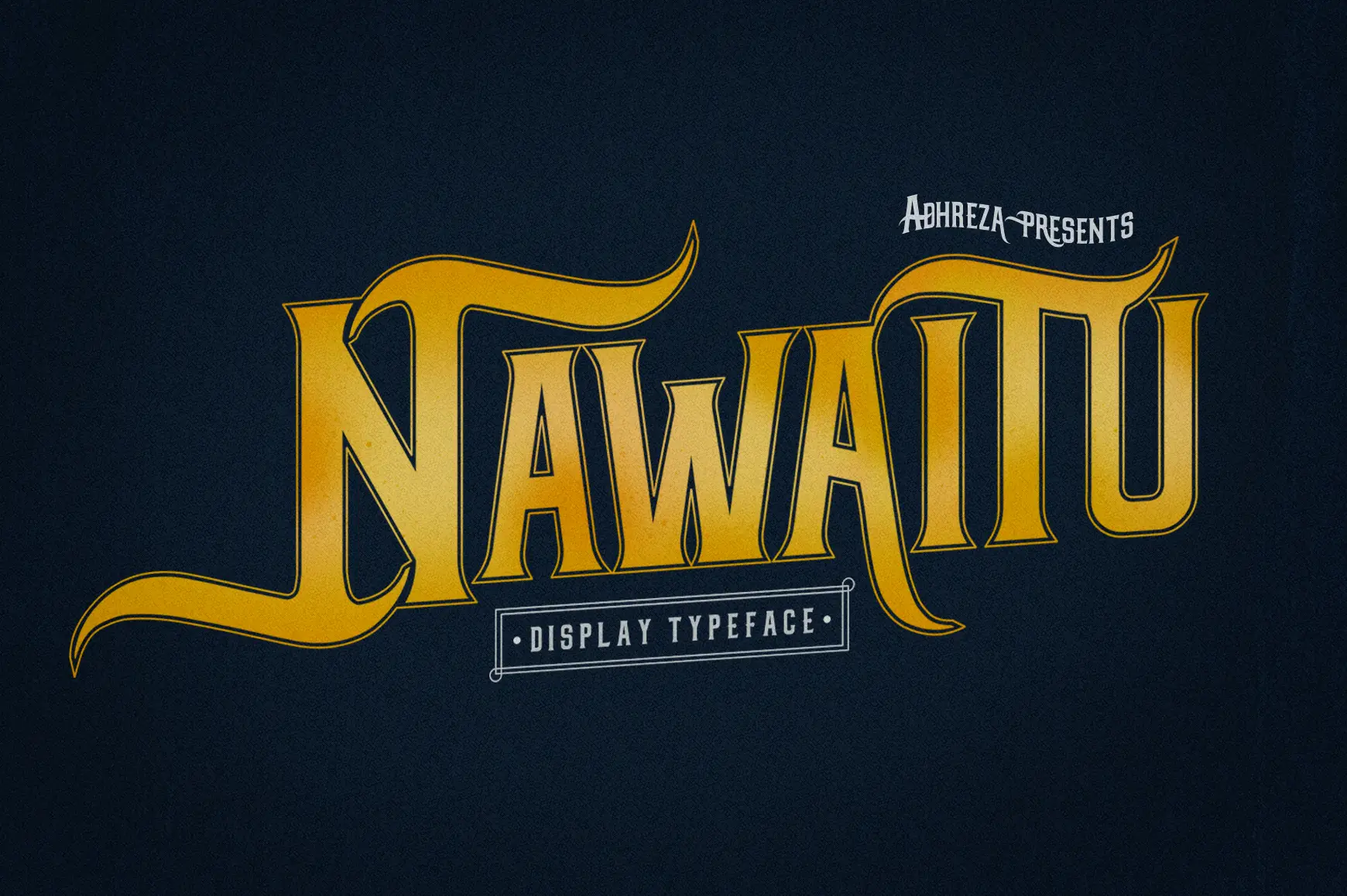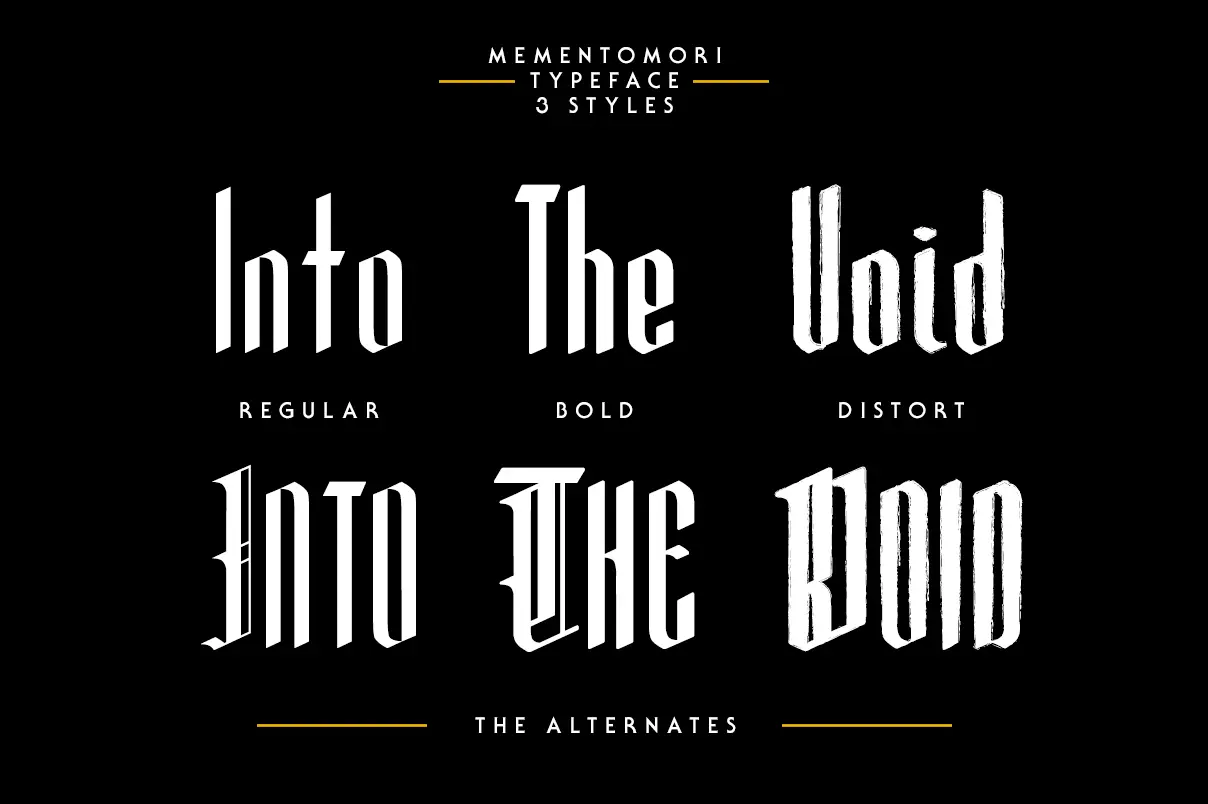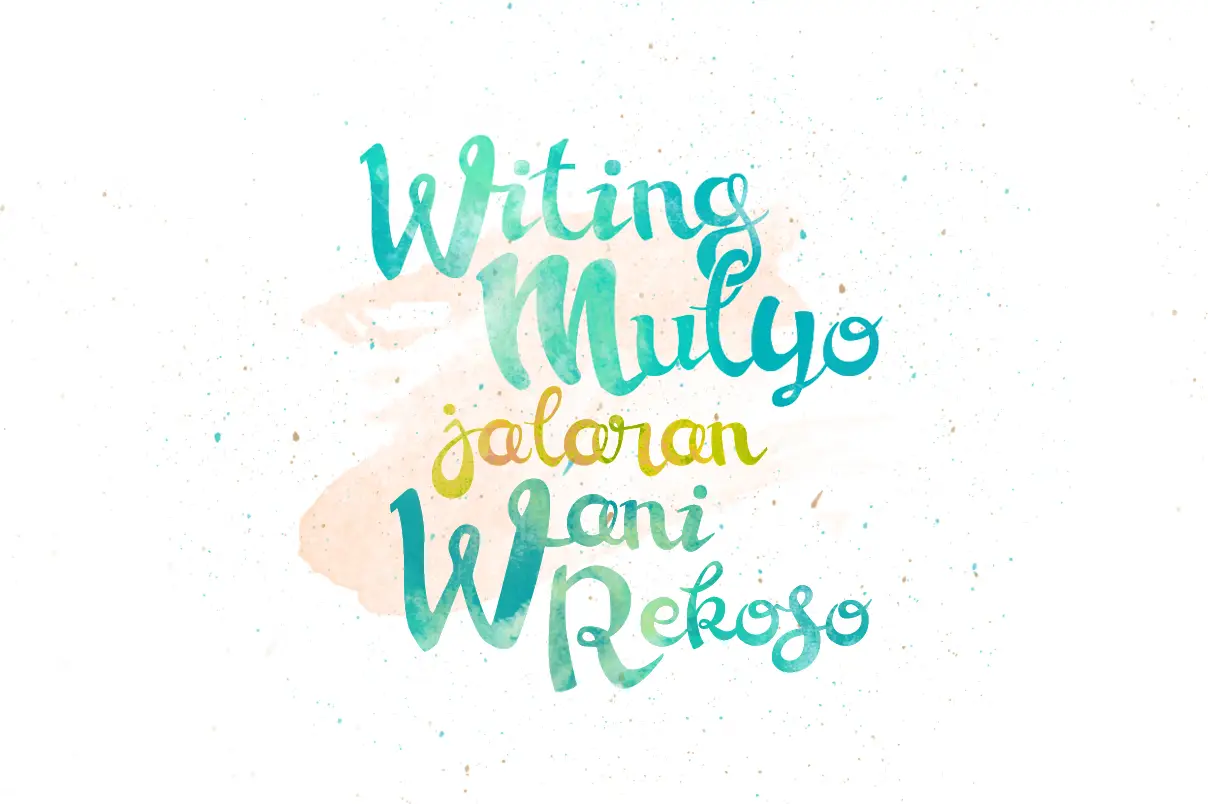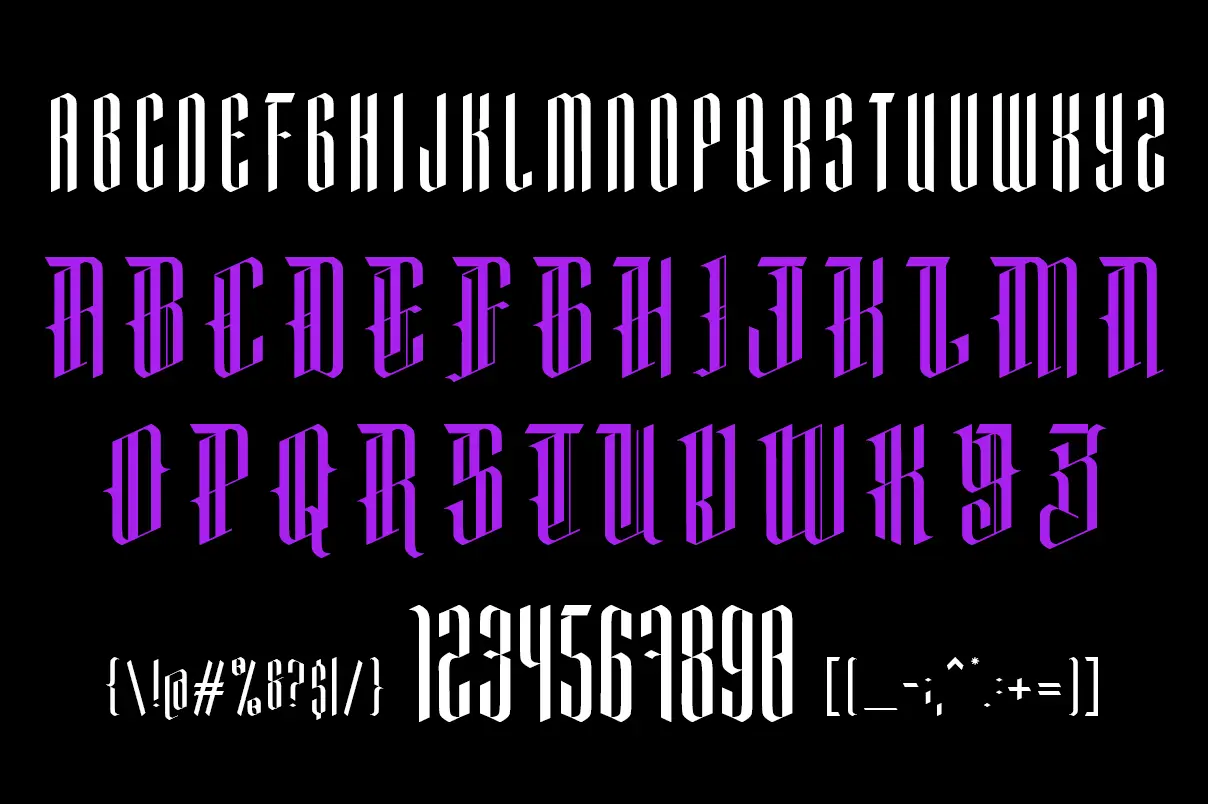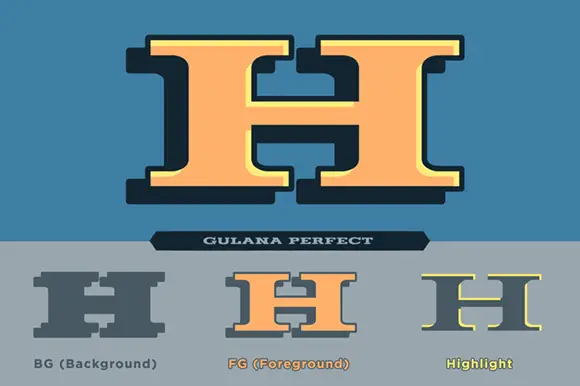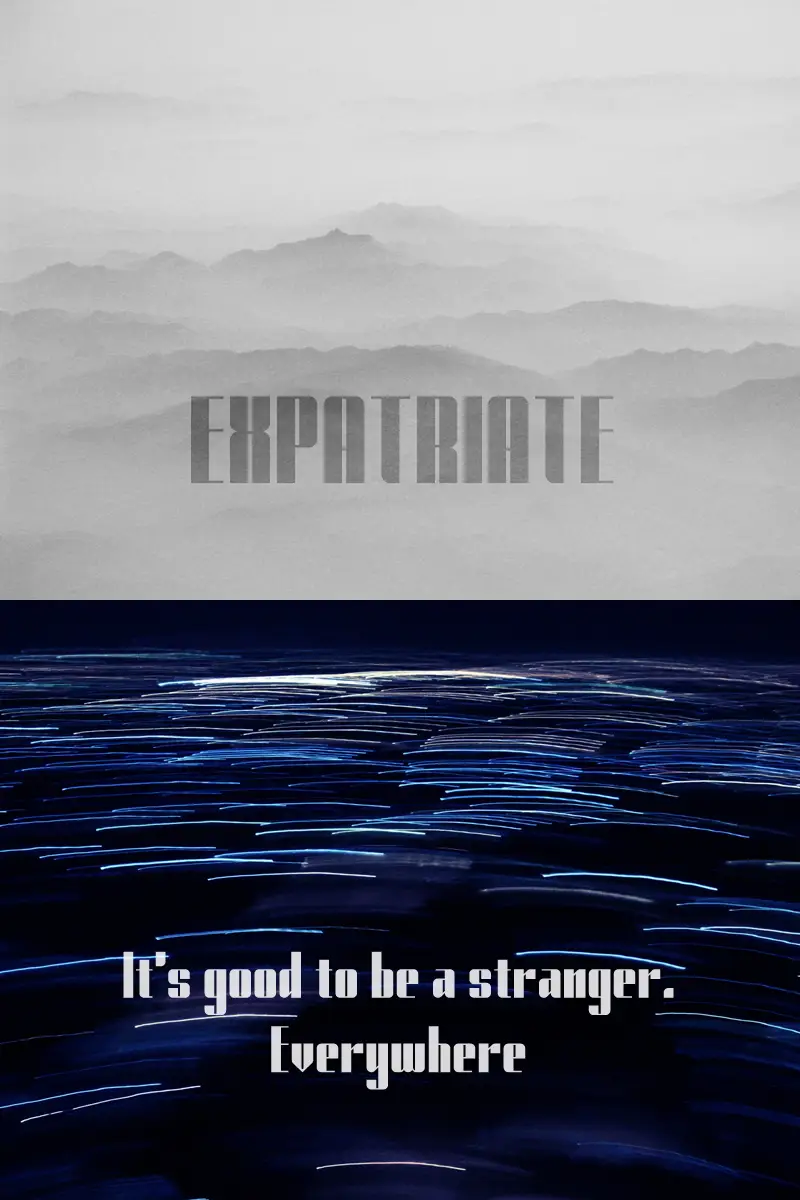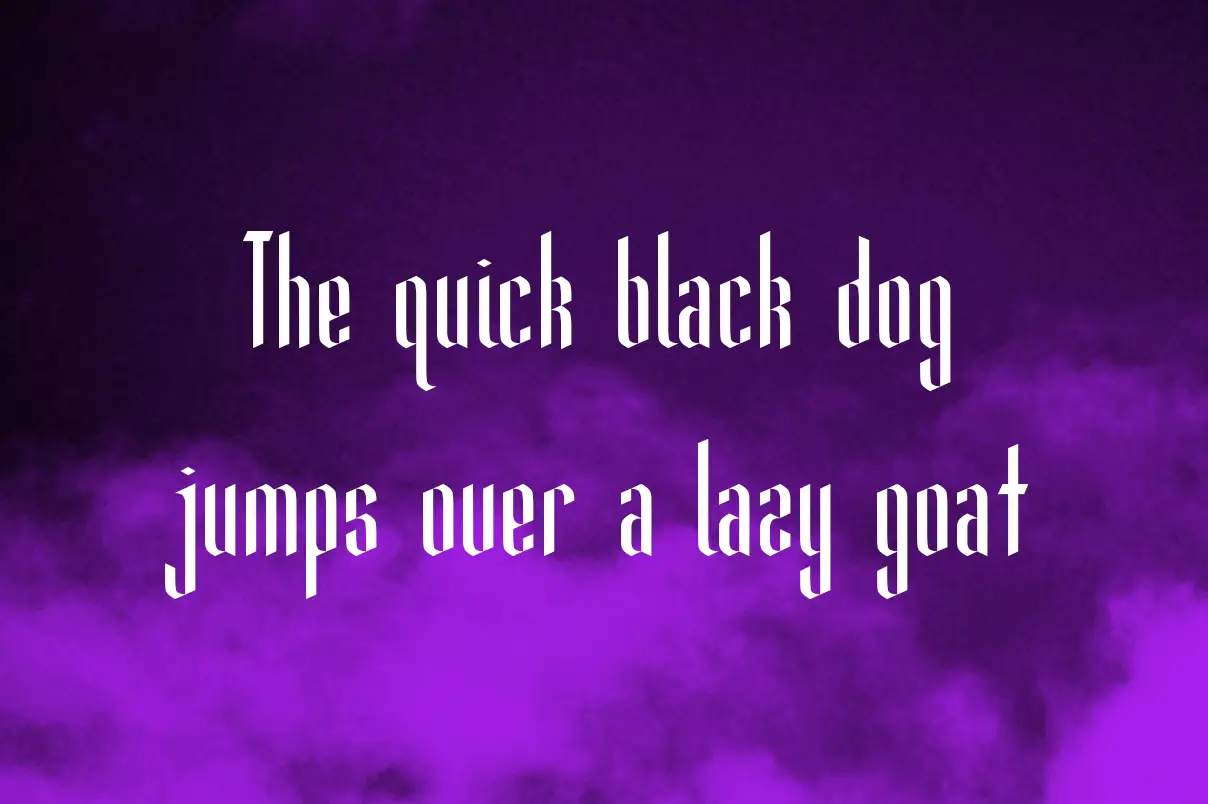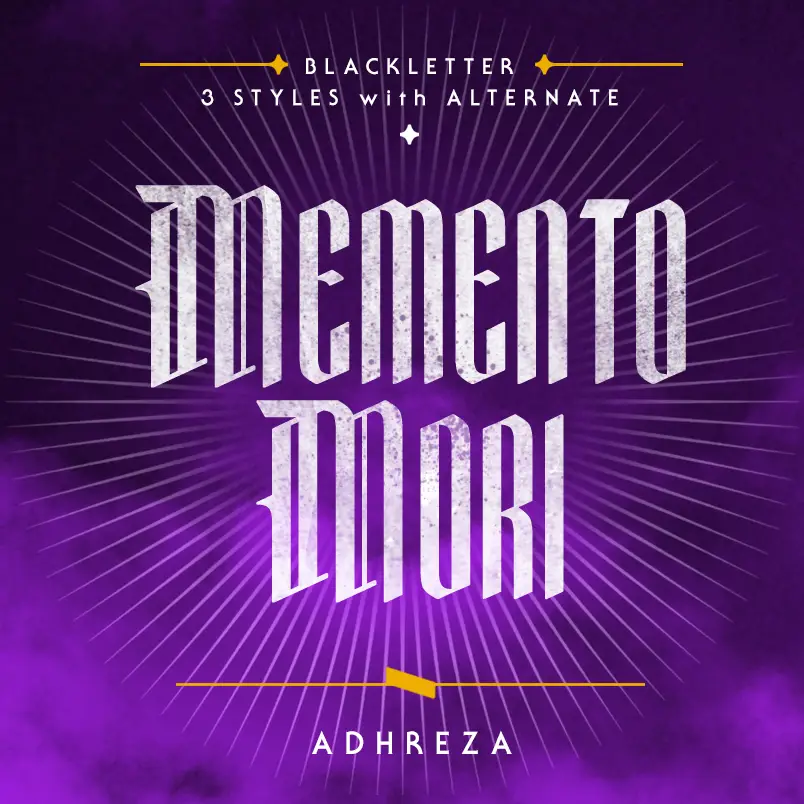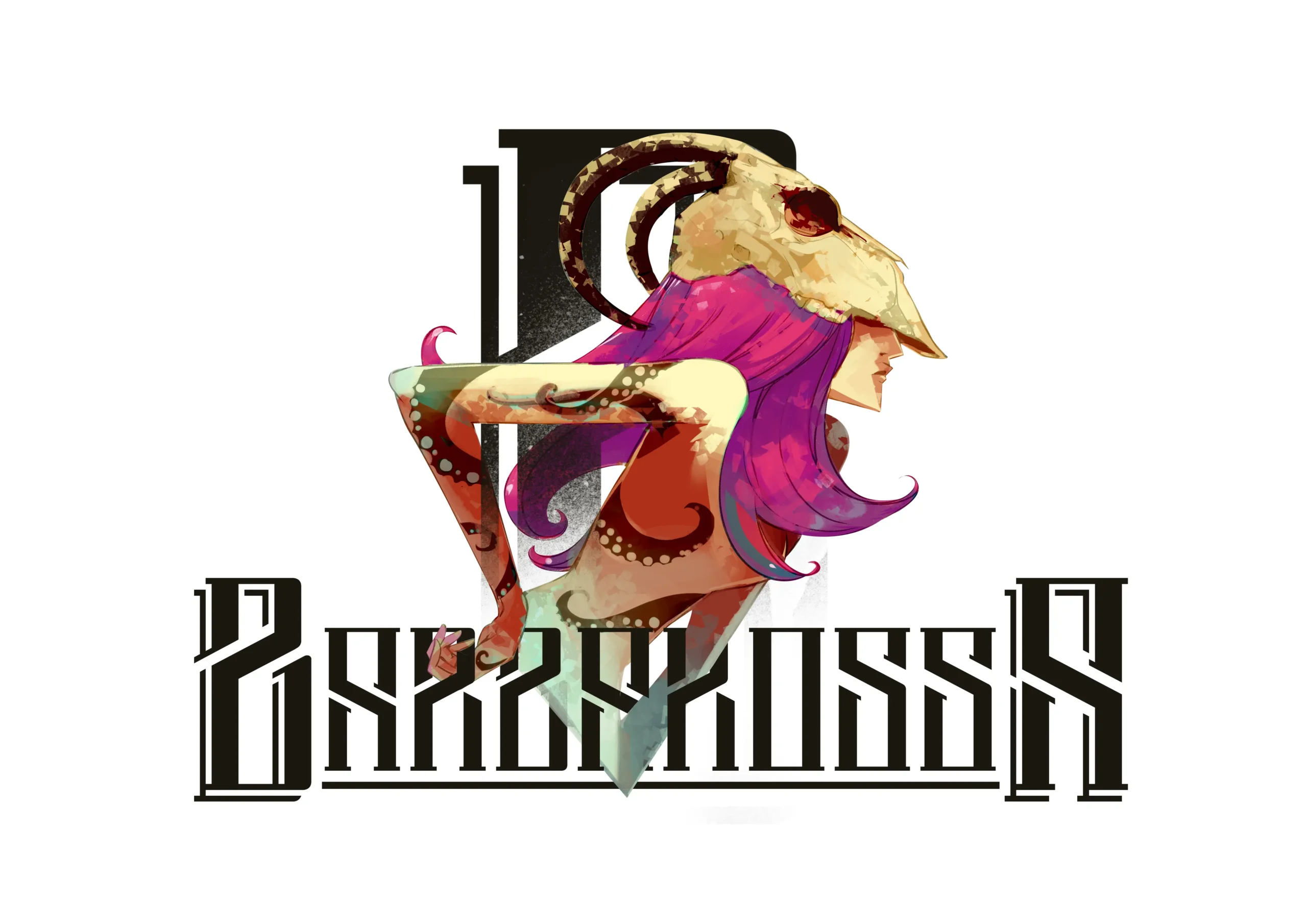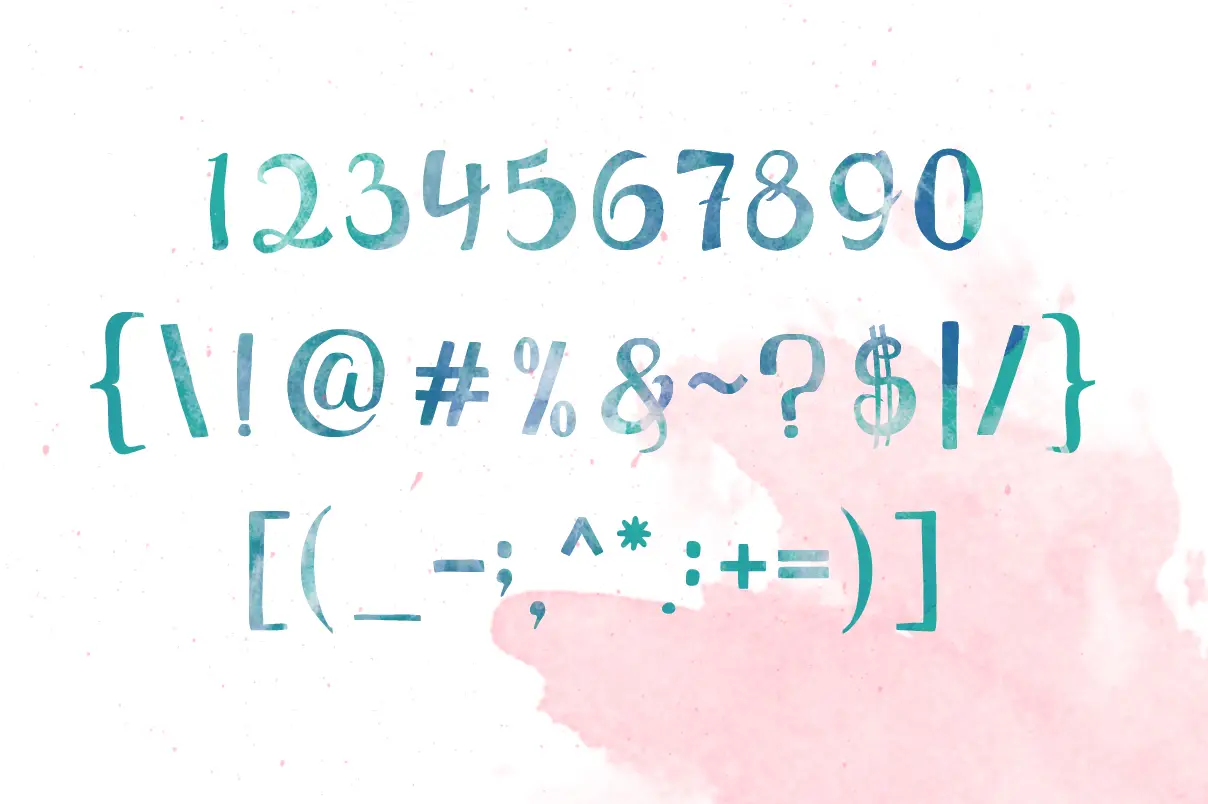
Introducing the Adhreza’s Bundle + Puna Typeface, a carefully curated collection of fonts designed to elevate your design projects. This bundle includes a unique combination of styles, offering versatility for various applications.
- Multiple font weights for diverse design needs
- Elegant and modern aesthetic suitable for branding and logos
- Clear legibility for both print and digital use
- Styles: Regular, Bold, Italic
Perfect for creating eye-catching branding, stylish logos, and engaging web content. Use the Puna Typeface for headings and body text to achieve a cohesive look across your projects.